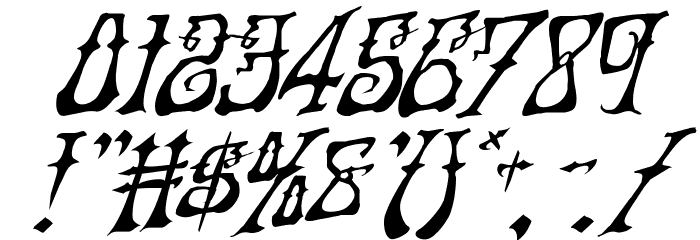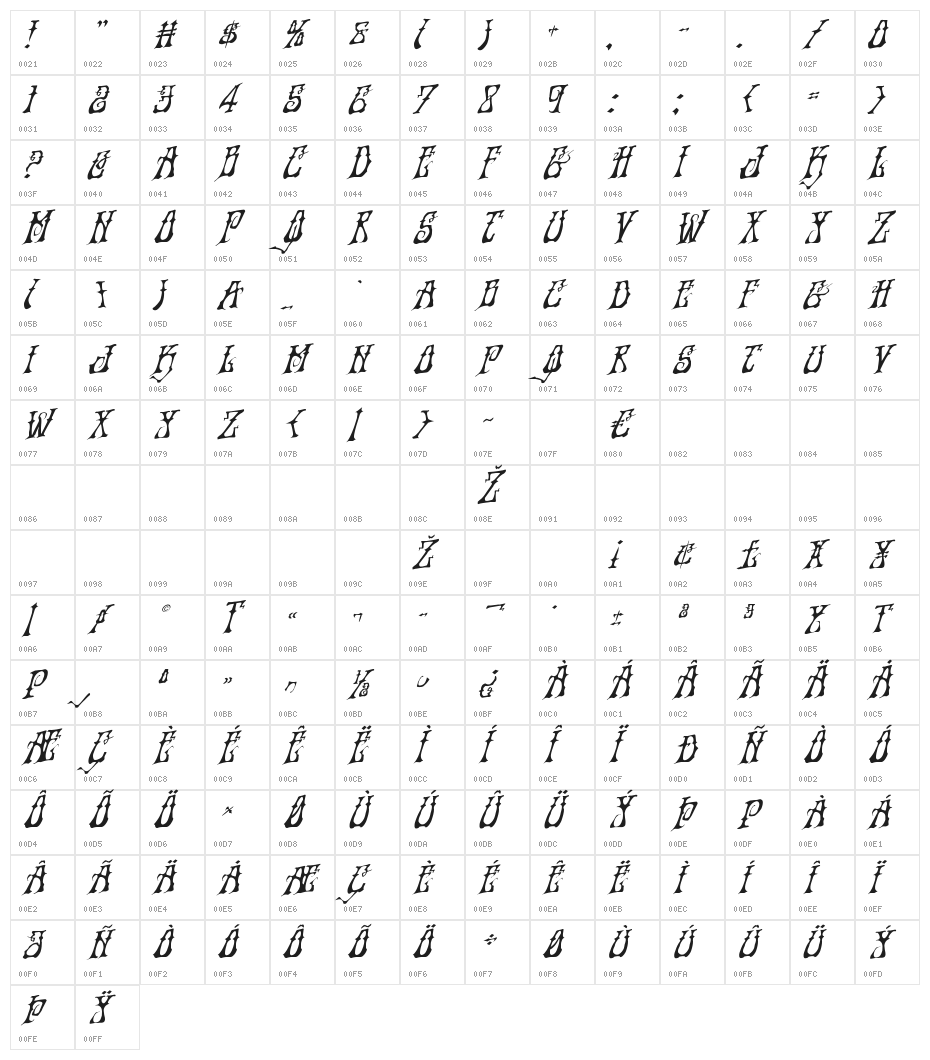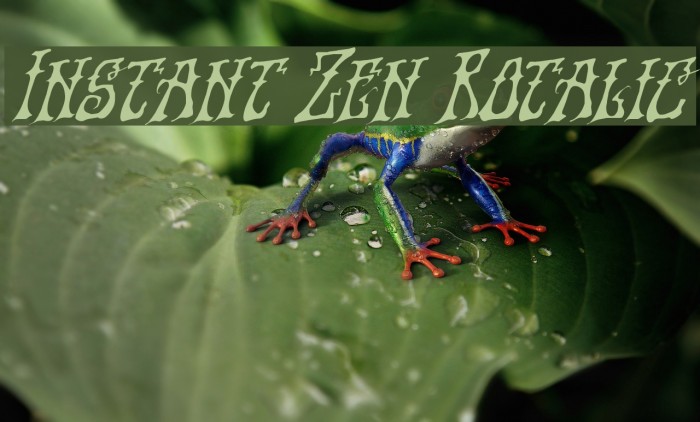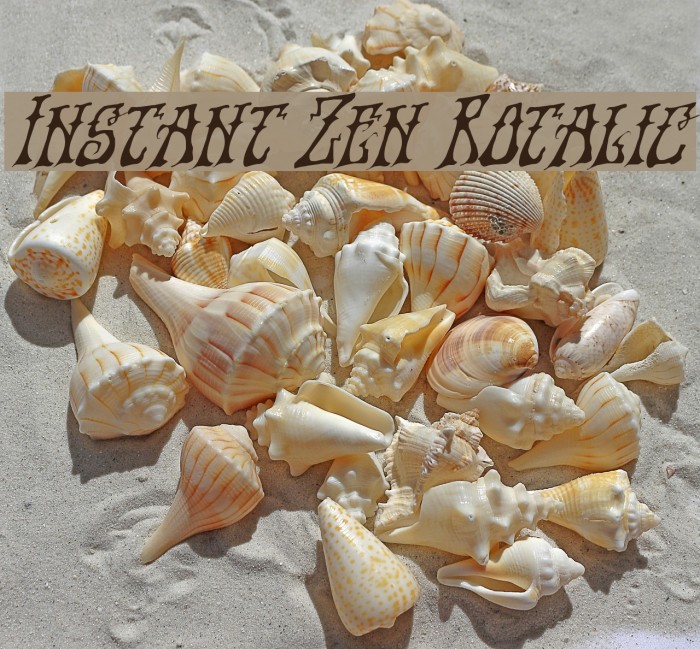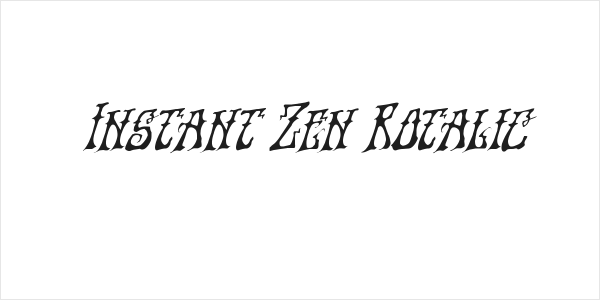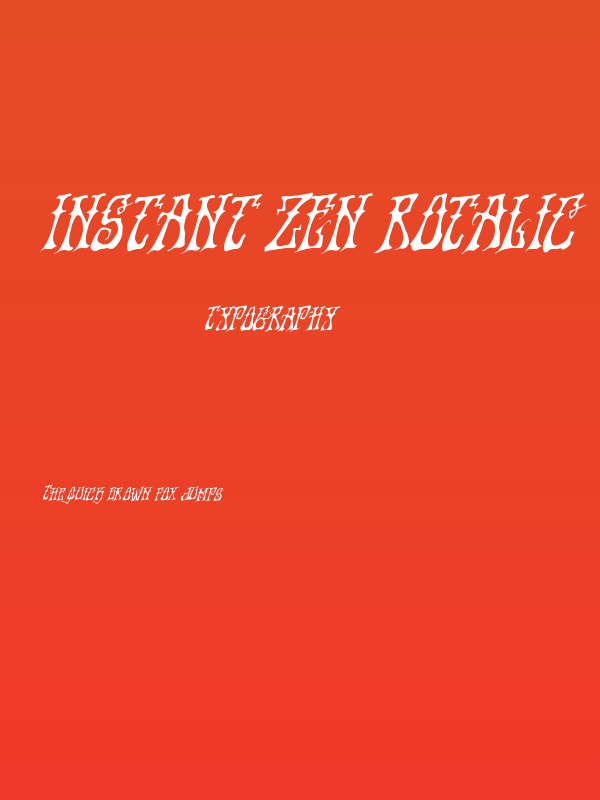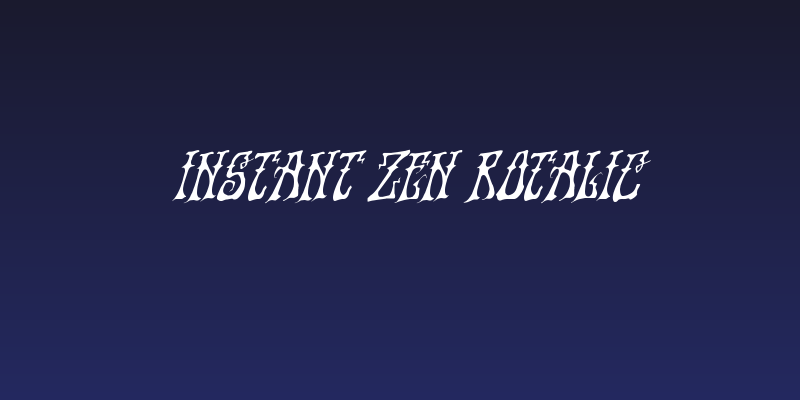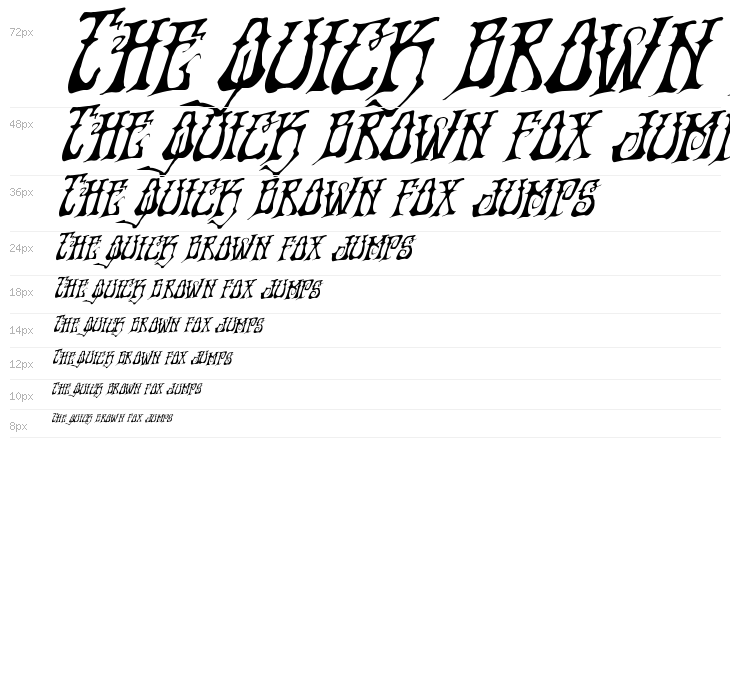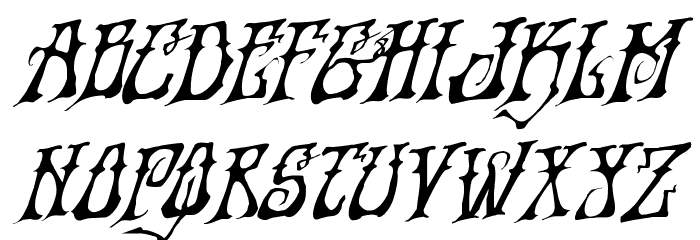
Instant Zen Rotalic Font
Instant Zen Rotalic Description
This font features a bold, dynamic style with sharp, angular lines and a distinct slant, giving it a sense of movement and energy. The characters are highly stylized with exaggerated serifs and unique flourishes, creating a dramatic and eye-catching appearance. The uppercase and lowercase letters maintain a consistent design, while the numerals and special characters integrate seamlessly with the overall aesthetic. The font's high contrast between thick and thin strokes adds to its striking visual impact, making it ideal for attention-grabbing designs.